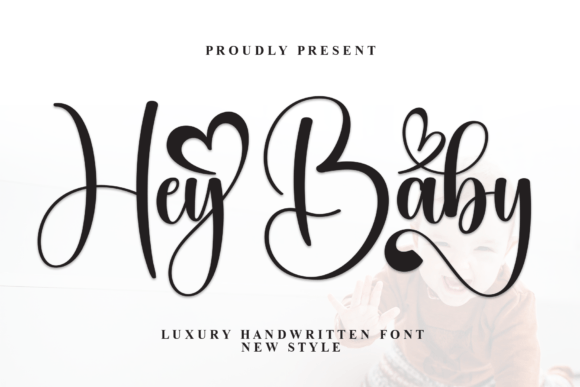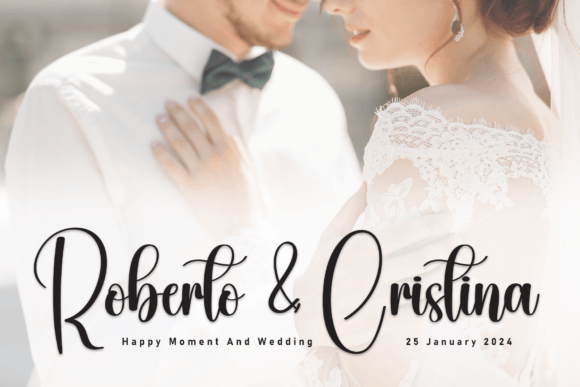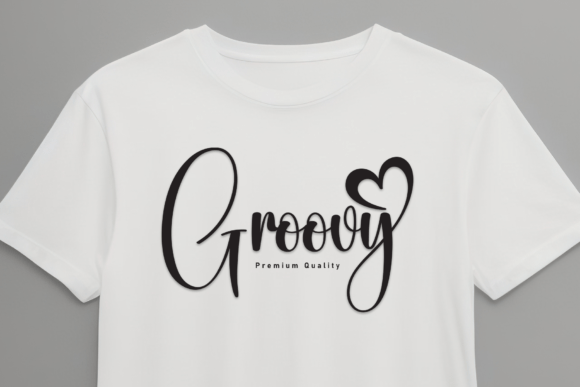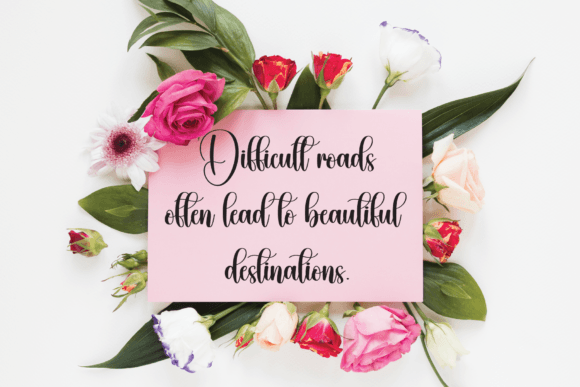
Hey Baby Font: Elegant Script for Wedding & Branding Design
About the Hey Baby Font
Presenting Hey Baby Font, a unique and stylish typeface that will make your work stand out. Hey Baby is a flowing handwritten font that marries grace with expressiveness. Each meticulously crafted character exudes an artful elegance, capturing the essence of traditional calligraphy. Ideal for projects seeking a timeless and sophisticated touch, Hey Baby adds a refined, handwritten flourish to your creative endeavors.
Hey Baby shines in applications requiring a touch of elegant informality, such as wedding invitations, stationery, or short quotes in social media graphics. Its expressive nature works well for branding projects aiming for a sophisticated yet approachable feel. Avoid using it for large blocks of body text or UI elements; its flowing style can hinder readability in extended passages.
Pairing Hey Baby with a clean sans-serif like Montserrat or a geometric sans-serif like Futura adds modern contrast and improves readability when used together. For a warmer feel, consider pairing it with a serif typeface such as Garamond or Playfair Display. These combinations balance Hey Baby’s handwritten charm with a structured element for improved visual hierarchy.
The font’s personality is best described as sophisticated yet approachable; elegant, but not overly formal. It projects a sense of warmth and handwritten charm, making it suitable for brands focusing on handcrafted products, artisanal goods, or businesses emphasizing a personal connection with their customers.
Hey Baby Font Usage Examples
Hey Baby Font Example